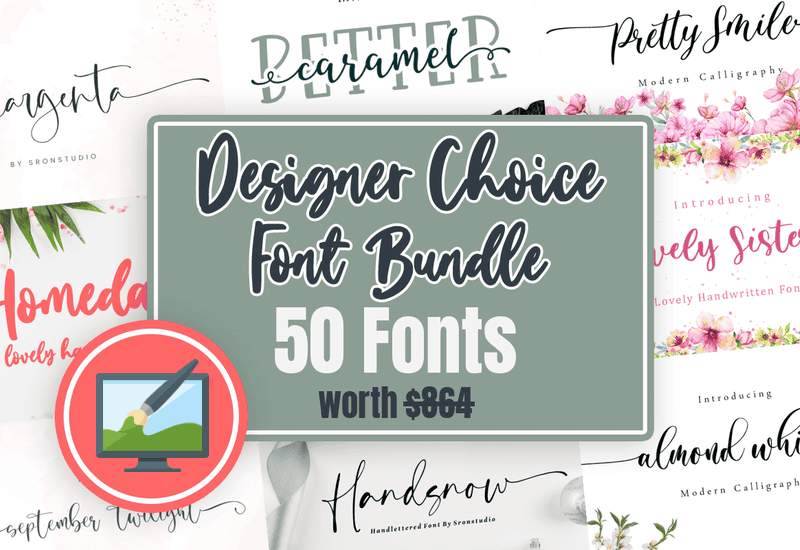
Typography plays a crucial role in design, and with the Designer Choice Font Bundle, you get 50 handpicked premium fonts to elevate your creative work. This collection features calligraphy, signature, handwritten, and display fonts, offering a diverse selection for crafting elegant invitations, branding, logos, and more. With a commercial license included, these fonts can be used for both personal and professional projects without restrictions.
Why Choose the Designer Choice Font Bundle?
✔ 50 Premium Fonts – A curated collection of stylish calligraphy, handwritten, and display fonts
A Versatile Font Collection for Every Creative Need
Elegant Calligraphy & Signature Fonts
Create stunning designs with smooth and flowing calligraphy fonts that add a personal, handwritten feel to invitations, greeting cards, and branding materials. Fonts like Bluebell Script, Better Caramel Trio, and Handita bring a sophisticated touch to any project.
Modern Handwritten Fonts
Looking for something casual yet stylish? The bundle includes a variety of handwritten fonts that work perfectly for social media graphics, digital planners, and promotional materials. Examples include Lovely Sister, Margenta, and September Twilight.
Display & Decorative Fonts
Make a bold statement with eye-catching display fonts, designed to capture attention in posters, packaging, and website headers. Fonts like Pretty Animal, Nice Dream, and Scary Vampire offer playful and creative lettering for standout designs.
Whimsical & Fun Fonts for Crafts
Perfect for DIY projects, these fonts are Cricut-friendly, making them great for crafting personalized mugs, T-shirts, tote bags, and more. Holiday Party, Fresh Cocktails, and Sunday Smoothie bring a fun and quirky element to any craft.
50 Premium Fonts in the Designer Choice Font Bundle:
- Bluebell Script & Handwritten Font
- Better Caramel Trio Script & Handwritten Font
- Handita Font Corsivi Font
- Almond Whisp Script & Handwritten Font
- Lovely Sister Fuentes Caligráficas Fuente
- Month Glade Font Corsivi Font
- Singletone Script & Handwritten Font
- Baby Darling Script & Handwritten Font
- Margenta Script & Handwritten Font
- September Twilight Script & Handwritten Font
- Almost Lonely Script & Handwritten Font
- Ragland Script & Handwritten Font
- Family Times Skript-Schriftarten Schriftart
- Pretty Animal Display Font
- Holiday Party Script & Handwritten Font
- Mommy Cupcakes Skript-Schriftarten Schriftart
- Scatter Ink Script & Handwritten Font
- Oliver Notes Fuentes Caligráficas Fuente
- Gallatone Script & Handwritten Font
- Tantinotes Script & Handwritten Font
- Delight Cookies Script & Handwritten Font
- Ramland Script & Handwritten Font
- The Plumber Script & Handwritten Font
- Handsel Fontes Script Fonte
- Nice Dream Display Font
- Darmogo Script & Handwritten Font
- Pretty Smile Script & Handwritten Font
- Fresh Cocktails Script & Handwritten Font
- Warmesty Script & Handwritten Font
- Scary Vampire Display Font
- White Bowling Fuentes Caligráficas Fuente
- Westborn Script & Handwritten Font
- Sunday Smoothie Fuentes Caligráficas Fuente
- Dalmatins Script & Handwritten Font
- Little Cupcakes Script & Handwritten Font
- Blessing Day Script & Handwritten Font
- Pancake Mango Script & Handwritten Font
- Brownies Sugar Script & Handwritten Font
- Shelma and Hugie Script & Handwritten Font
- Signeritta Fuentes Caligráficas Fuente
- Koala Family Fuentes Display Fuente
- Pashmina Script & Handwritten Font
- Bintaro Script & Handwritten Font
- Gilmour Fuentes Caligráficas Fuente
- Sheridan Fuentes Caligráficas Fuente
- Handsnow Fuentes Caligráficas Fuente
- Martinesse Script Fuentes Caligráficas Fuente
- Handsetting Script & Handwritten Font
- Homeday Script & Handwritten Font
- Paris Tonight Fuentes Caligráficas Fuente